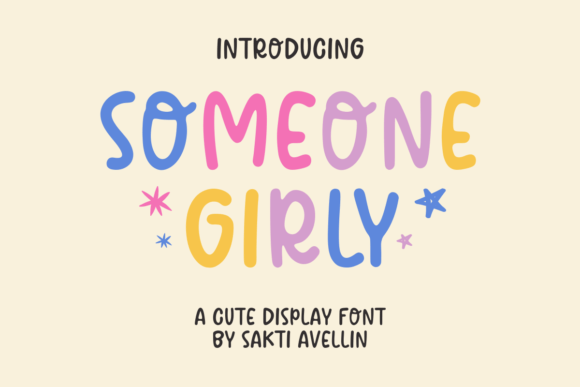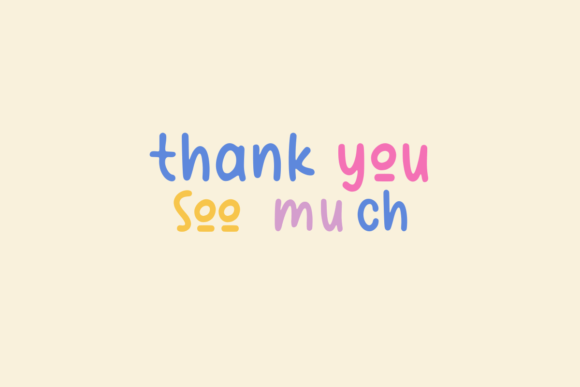
Someone Girly Font
Introducing “Someone Girly” – an enchantingly playful handcrafted font, designed to sprinkle fun and charm onto a myriad of creations! From quirky quotes to personalized t-shirts, nifty tote bags to delightful birthday invites, this font weaves magic everywhere. Craft enthusiasts and DIY dabblers alike find its allure irresistible in stunning weddings decor and captivating wall adornments. So, if you’re looking for a font that truly brings your creative visions to life, “Someone Girly” is your perfect lettering companion.